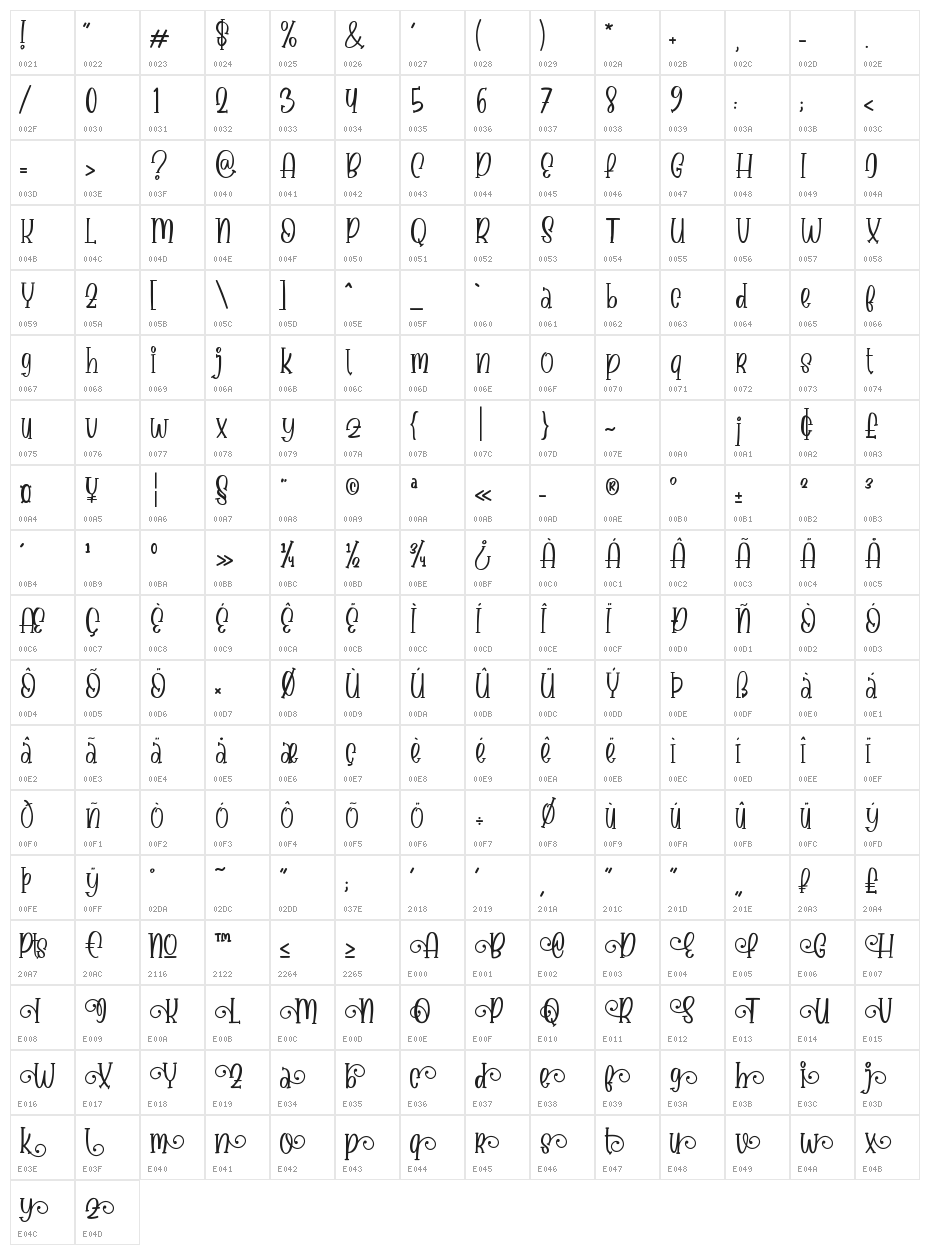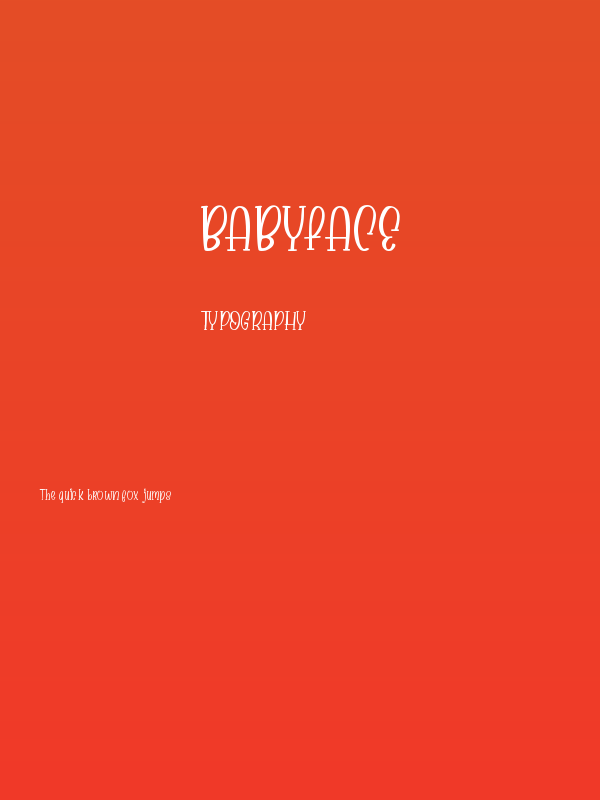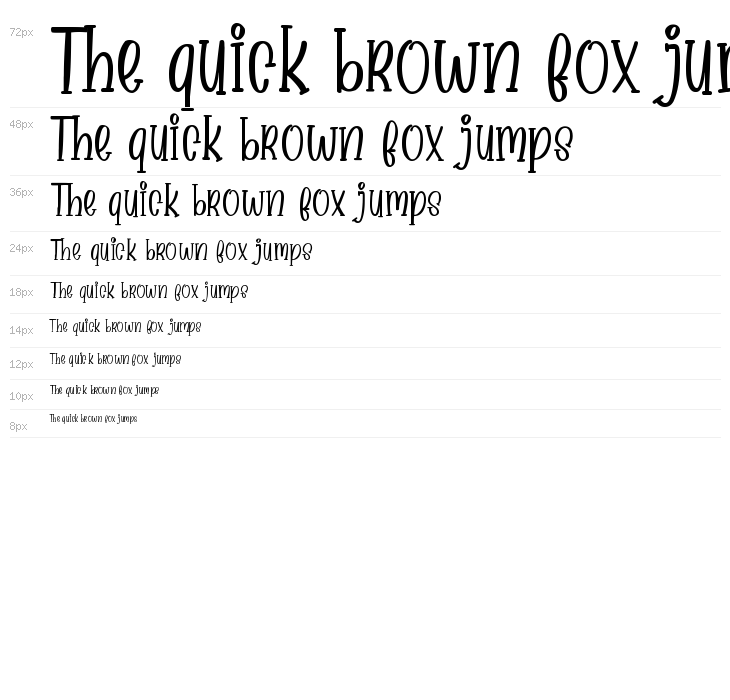
Babyface Font
Babyface Description
This playful and whimsical font features a unique blend of curves and straight lines, creating a lively and engaging appearance. The uppercase letters are tall and narrow, with distinctive loops and swirls that add a touch of elegance. The lowercase letters maintain a consistent style, with rounded edges and a slight slant, enhancing the font's playful nature. The numerals are bold and clear, ensuring readability while maintaining the overall aesthetic. Special characters are creatively designed, adding to the font's versatility and charm.
| Proposed Projects | Ideal for children's books, playful branding, greeting cards, and creative posters. |